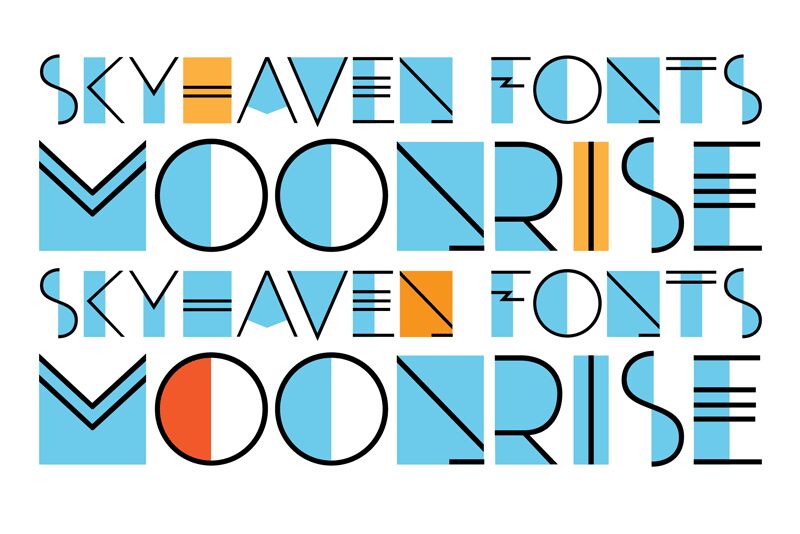
Moonrise Alternate is an eye-catching display font that exudes a captivating retro-futuristic aesthetic. Its intricate, layered design offers a unique visual experience, blending Art Deco influences with a modern, experimental flair. The light, expanded weight creates a sense of elegance and refinement, making it an ideal choice for bold, attention-grabbing headlines, logos, and branding applications.
This font's versatility shines through its ability to evoke a range of moods, from vintage-inspired glamour to cutting-edge modernity. Its clean, distinctive letterforms and striking visual presence make Moonrise Alternate a standout option for designers seeking to infuse their projects with a touch of vintage-inspired sophistication and contemporary edge.
Moonrise Alternate